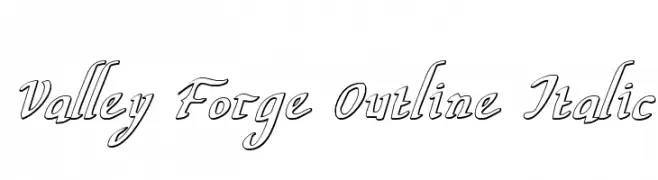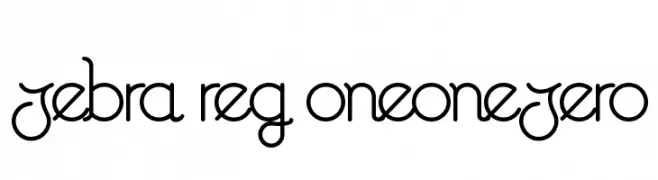
An outlined, italic font with a cursive-like, elegant style.
( Fonts by Laurent Mouy )
A lively, handwritten font with fluid, organic strokes and a playful yet sophisticated flair.
( Fonts by yong Somewhere Else - somewhere-else.info )
A playful, modern font with continuous, flowing lines and rounded edges.